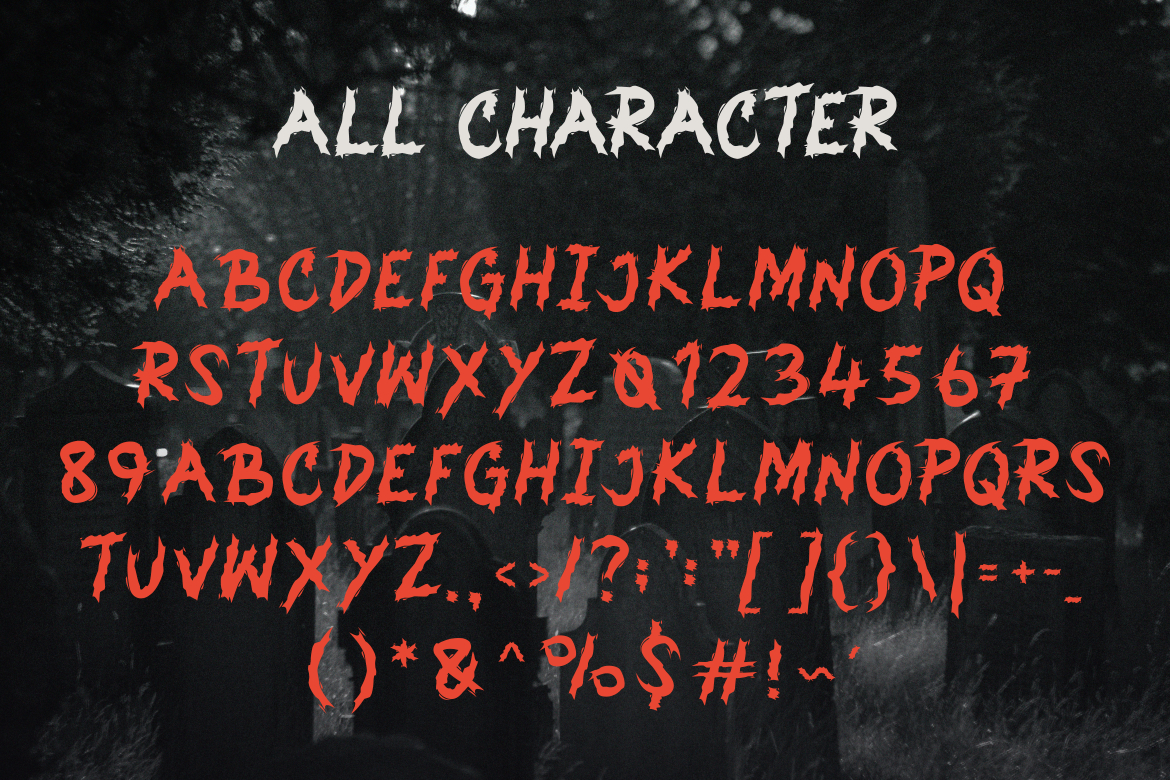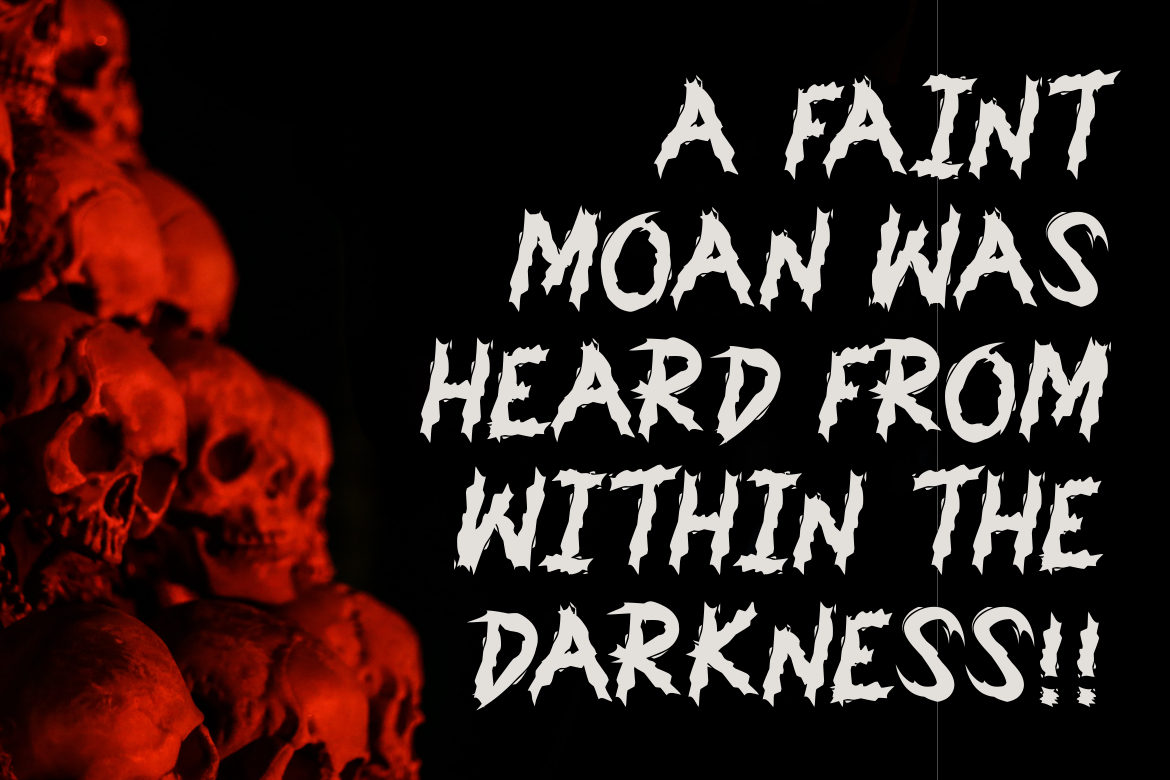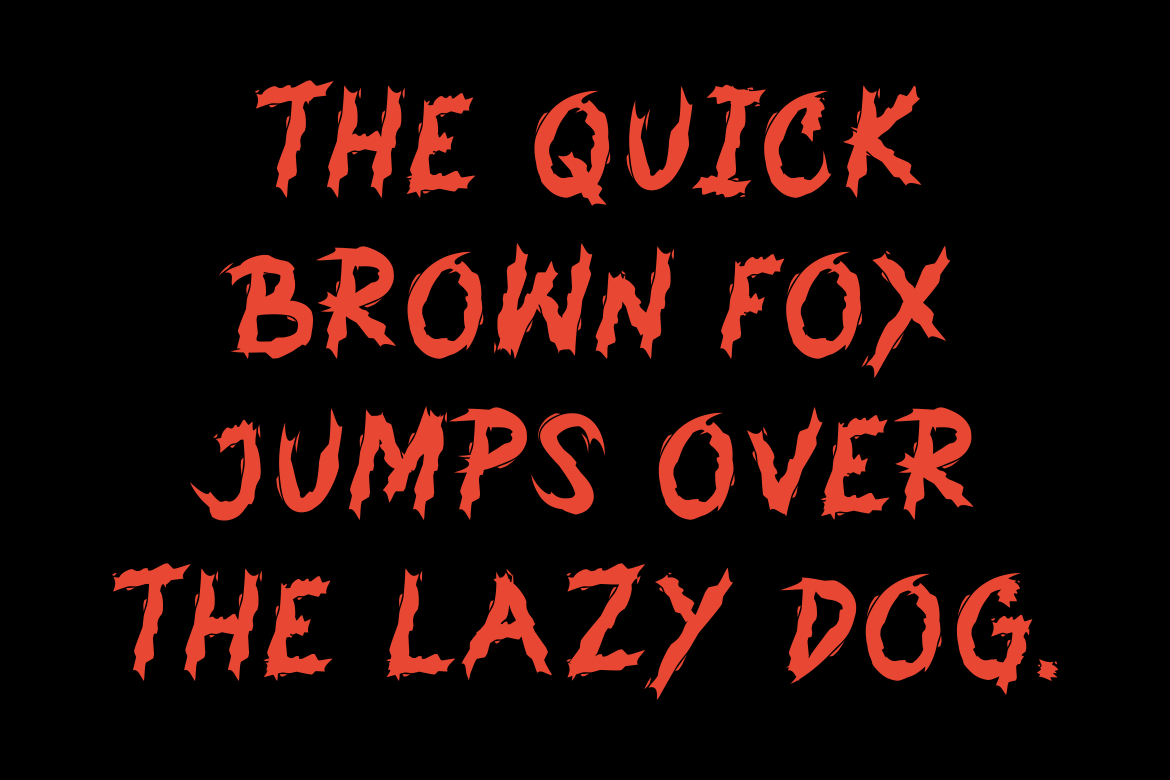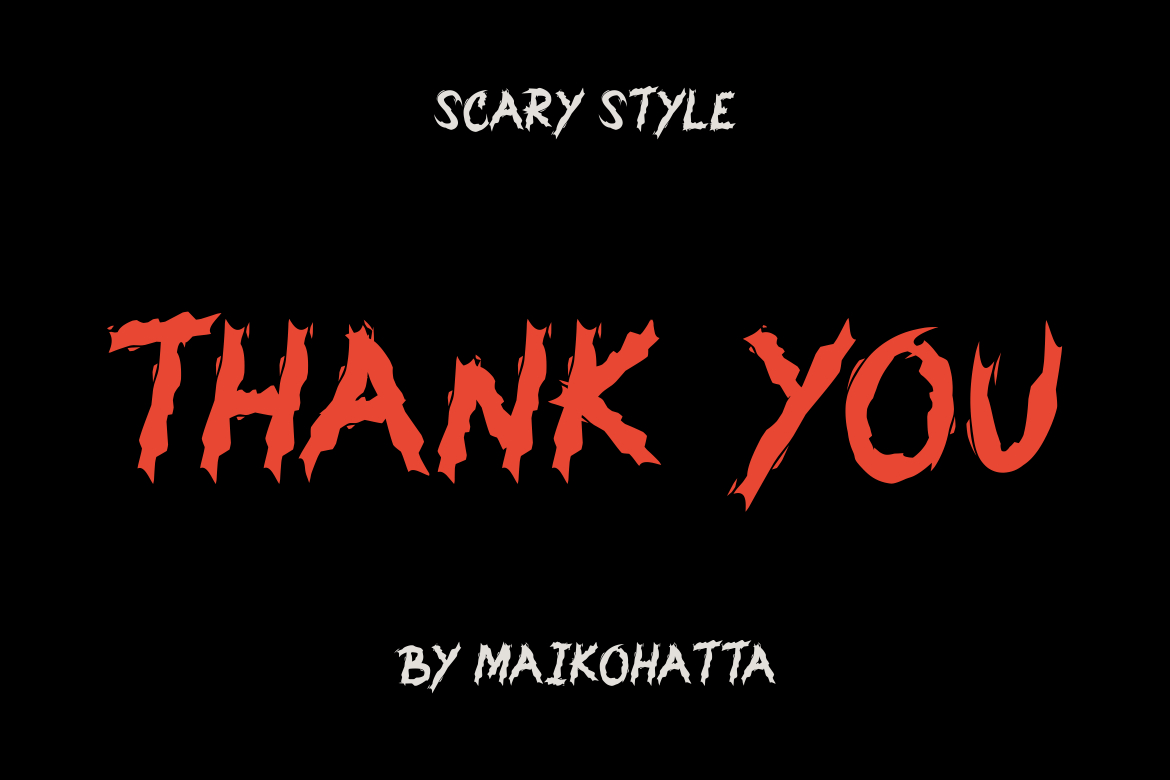
Molifer Font
About Molifer Font
Molife is a distinct, highly detailed, and Horror Metal font. It would make a great choice for exquisite retro-urban designs, tattoo business branding, logos, vintage designs, and more.